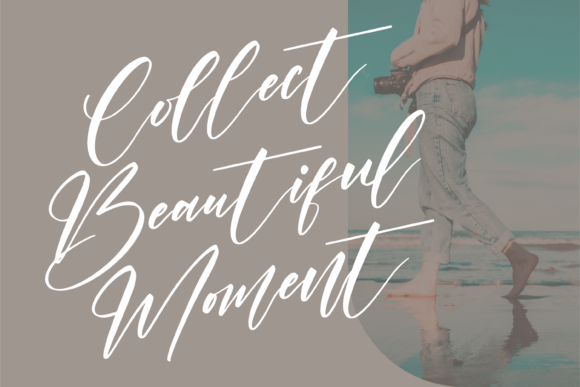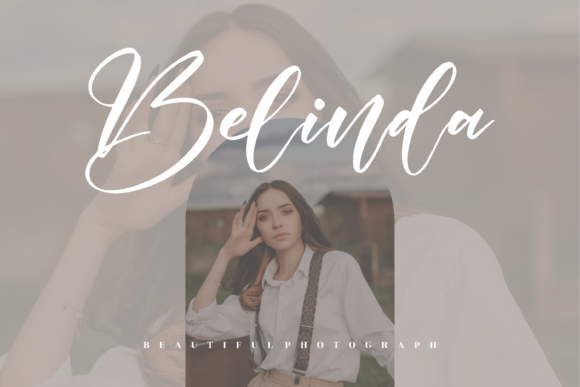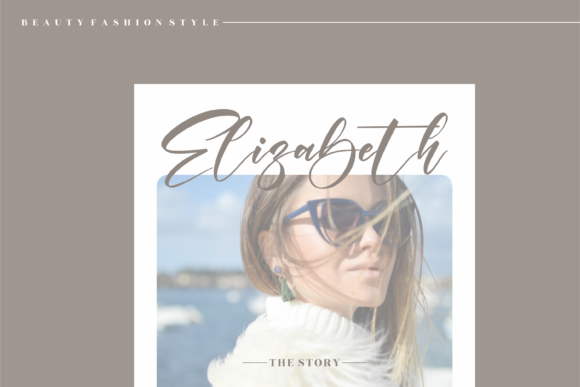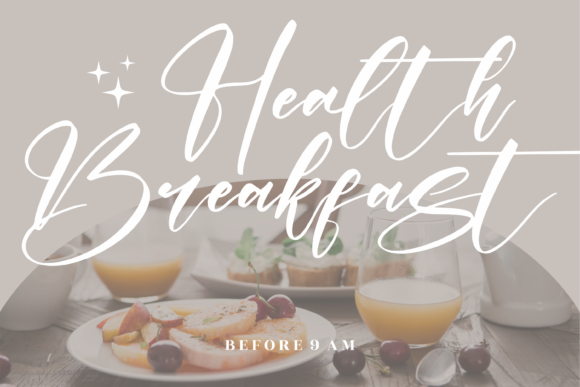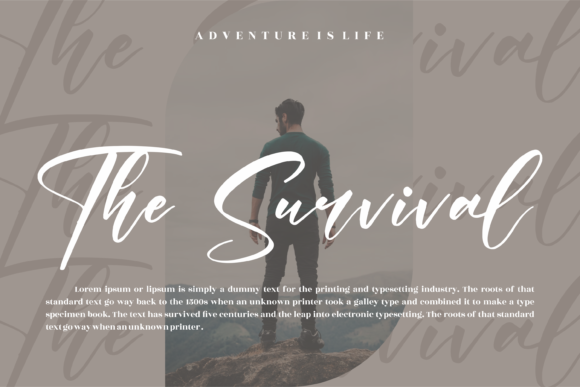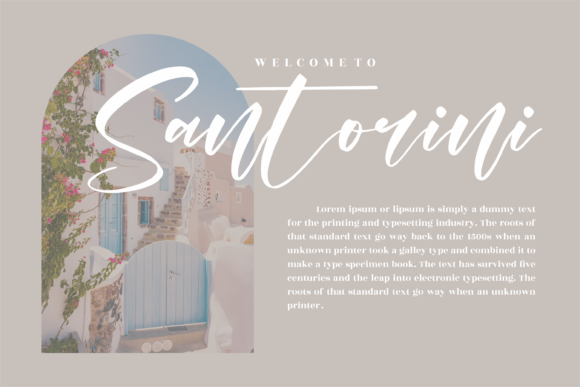
Introducing Belistic Kaldera: The Elegant Signature Font for Your Creative Projects
Are you a designer or crafter looking for a beautiful and versatile font to elevate your creative projects? Look no further than Belistic Kaldera, a stunning signature font that’s perfect for a wide range of applications. From logos and branding projects to homeware designs, product packaging, and more, Belistic Kaldera is the ideal choice for anyone seeking a touch of elegance and sophistication.
What Makes Belistic Kaldera Special?
Belistic Kaldera is a script font that exudes beauty and refinement. Its flowing lines and curves make it perfect for adding a touch of luxury to any project. Whether you’re working on a logo, a poster, or a product design, Belistic Kaldera is sure to make a lasting impression. Its versatility is unmatched, making it suitable for a wide range of projects, including:
• Logos and branding projects
• Homeware designs
• Product packaging
• Mugs and ceramics
• Quotes and posters
• Shopping bags and t-shirts
• Book covers and name cards
• Invitation cards and greeting cards
• Labels and photography
• Watermarks and special events
Why Choose Belistic Kaldera?
So, what sets Belistic Kaldera apart from other fonts? Here are just a few reasons why designers and crafters love this beautiful signature font:
• Elegant and sophisticated: Belistic Kaldera adds a touch of luxury to any project, making it perfect for high-end brands and designers.
• Versatile: With its wide range of applications, Belistic Kaldera is a font that can be used again and again, making it a valuable addition to any design library.
• Easy to read: Despite its elegant and cursive nature, Belistic Kaldera is surprisingly easy to read, making it perfect for use in body text and captions.
• Unique: Belistic Kaldera has a distinctive look that’s sure to set your projects apart from the crowd.
How to Use Belistic Kaldera in Your Projects
Using Belistic Kaldera in your projects is easy. Here are a few tips to get you started:
• Pair it with a sans-serif font: For a classic look, pair Belistic Kaldera with a clean sans-serif font, such as Arial or Helvetica.
• Use it as a headline font: Belistic Kaldera is perfect for use as a headline font, adding a touch of elegance and sophistication to any design.
• Experiment with colors: Belistic Kaldera looks great in a range of colors, from bold and bright to soft and pastel.
Whether you’re a seasoned designer or just starting out, Belistic Kaldera is a font that’s sure to inspire. Its beauty and versatility make it perfect for a wide range of projects, from logos and branding to homeware designs and product packaging. So why not give it a try? You won’t be disappointed!